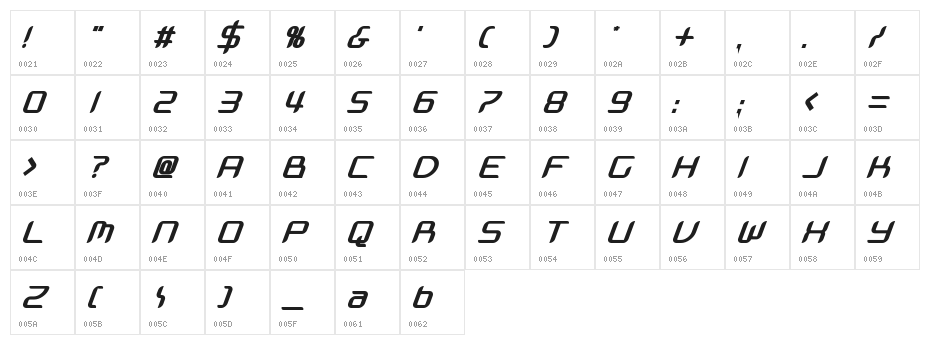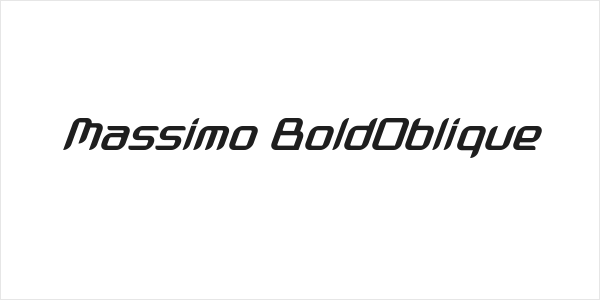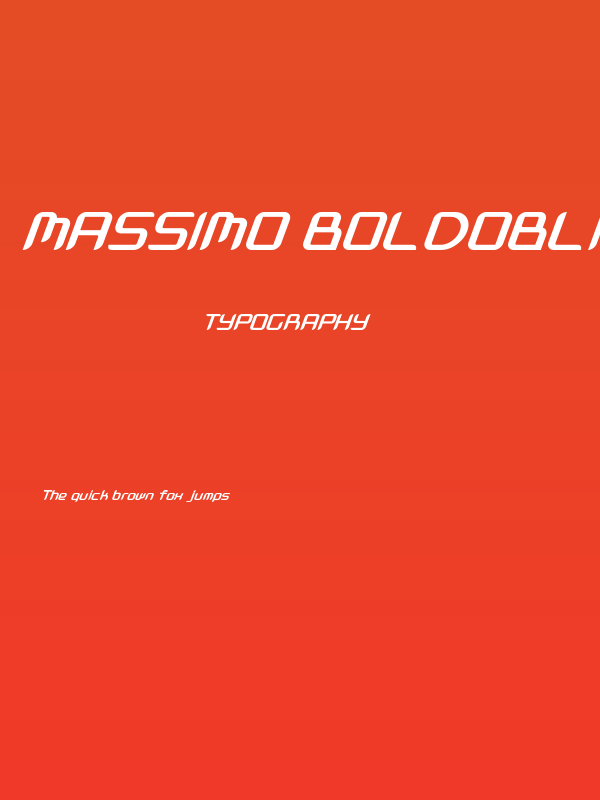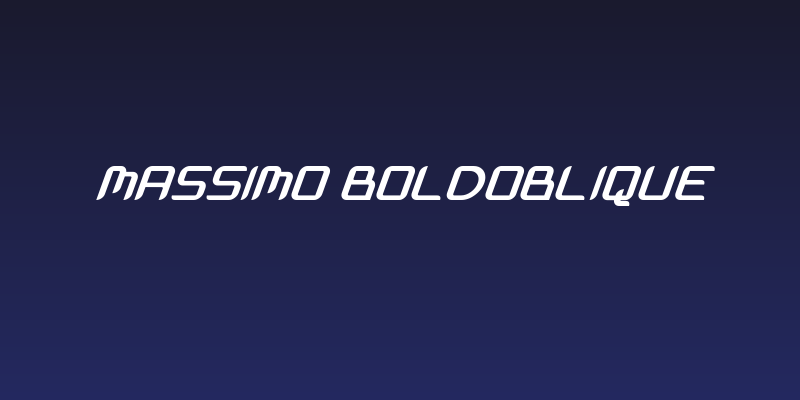
Massimo BoldOblique Font
Massimo BoldOblique Description
This font features a bold and oblique style, characterized by its slanted and dynamic appearance. The letters are designed with a modern and futuristic aesthetic, showcasing clean lines and a geometric structure. The uppercase and lowercase letters maintain a consistent slant, enhancing the sense of motion and speed. The numerals and special characters are crafted to match the overall style, providing a cohesive look. The font's bold weight ensures strong visibility, making it suitable for impactful designs.
| Proposed Projects | Ideal for sports branding, tech company logos, futuristic posters, and dynamic headlines. |